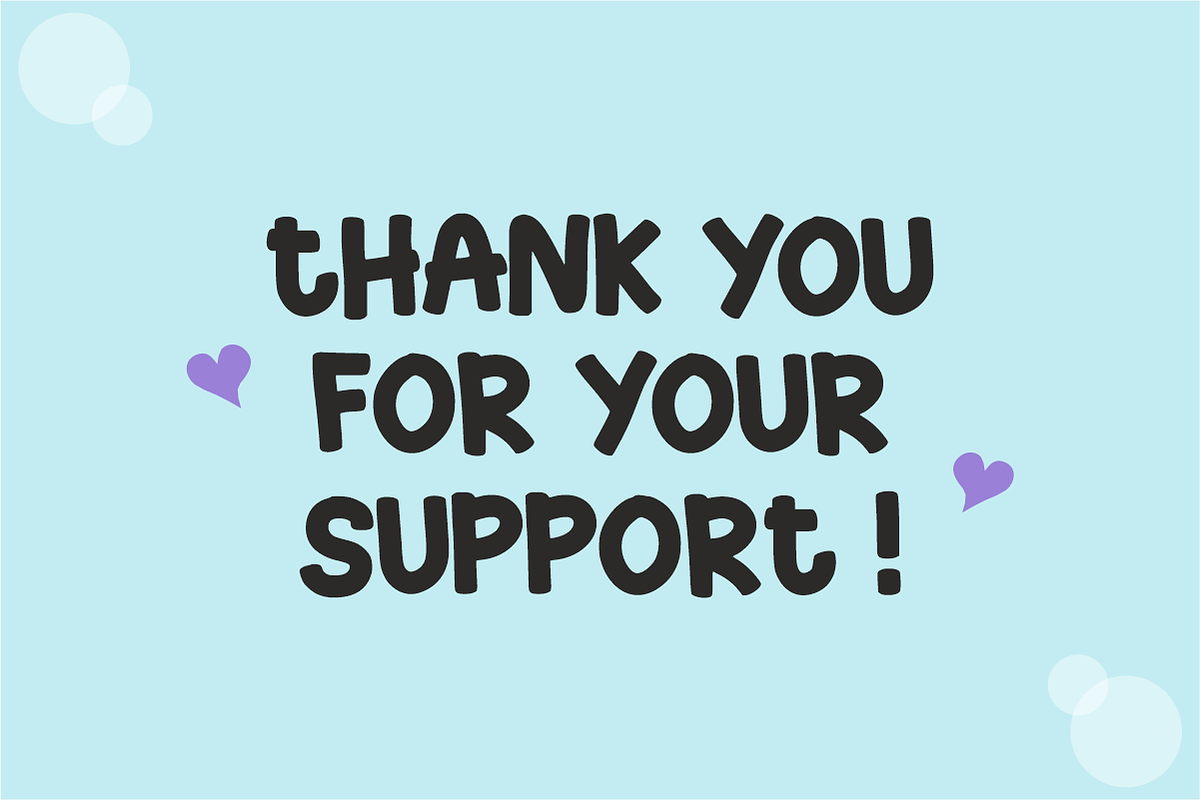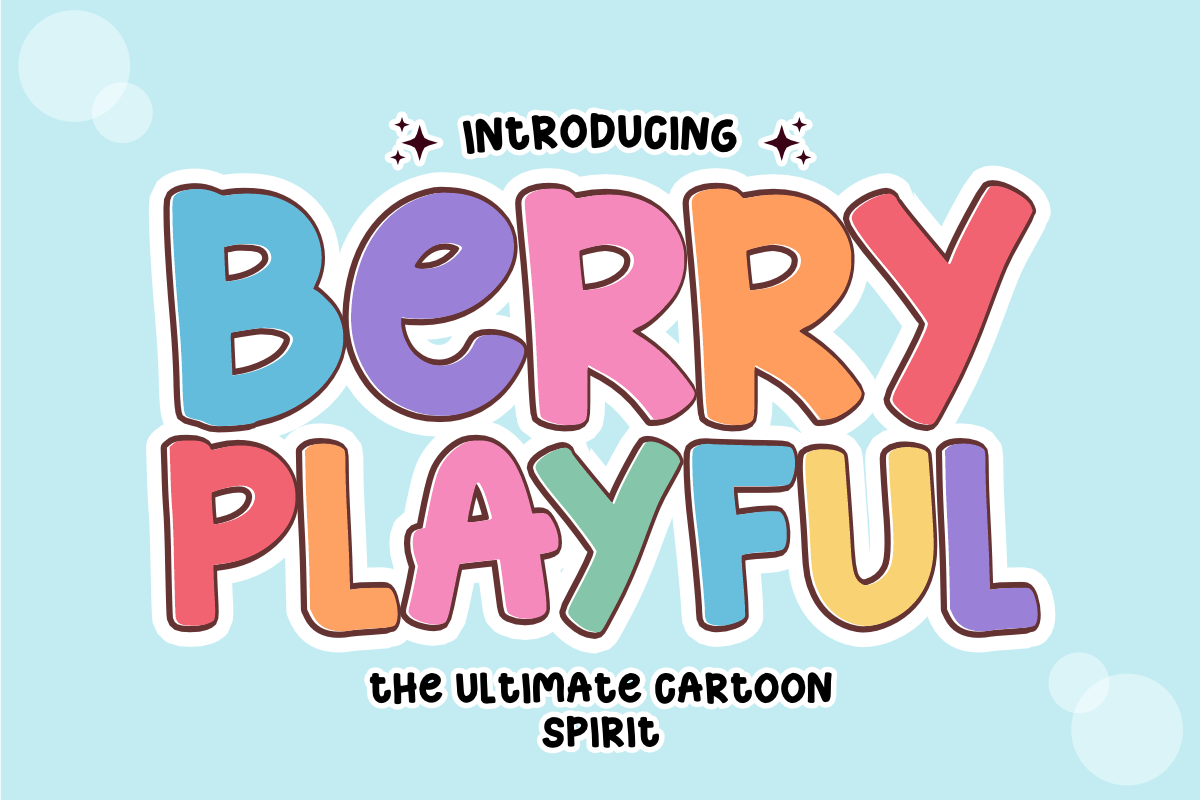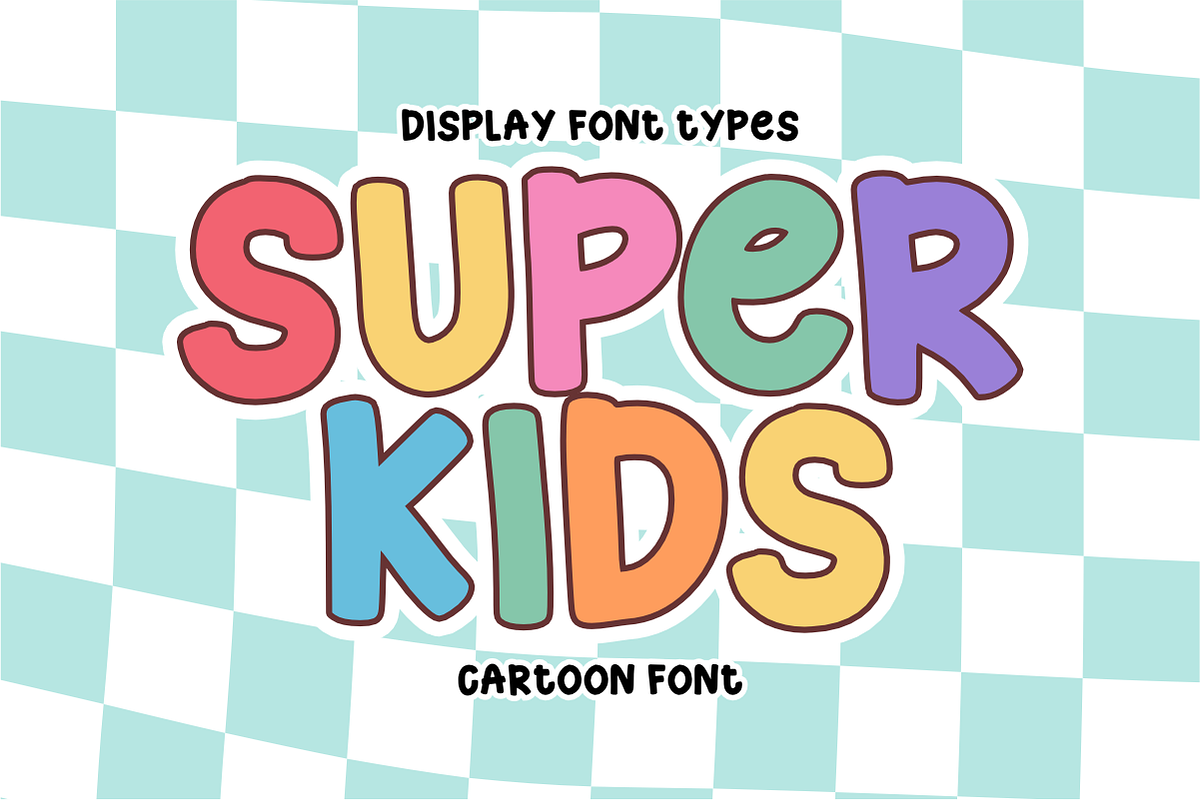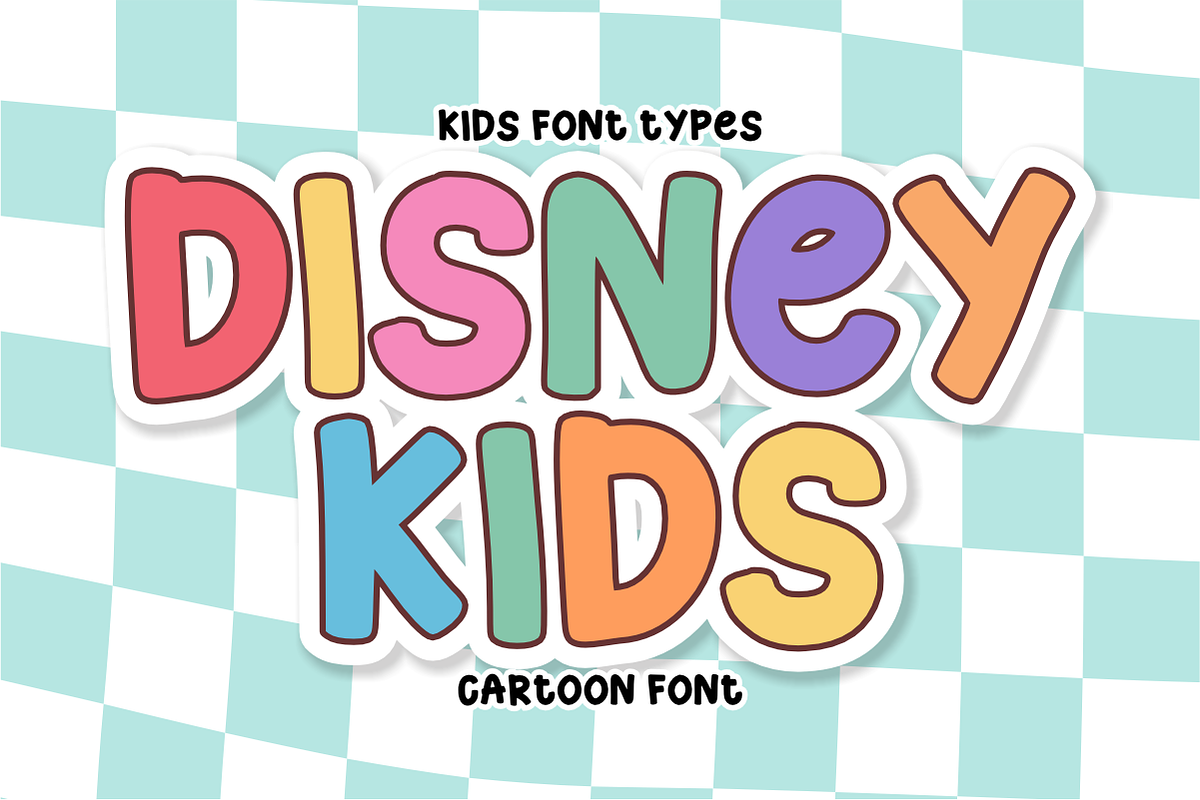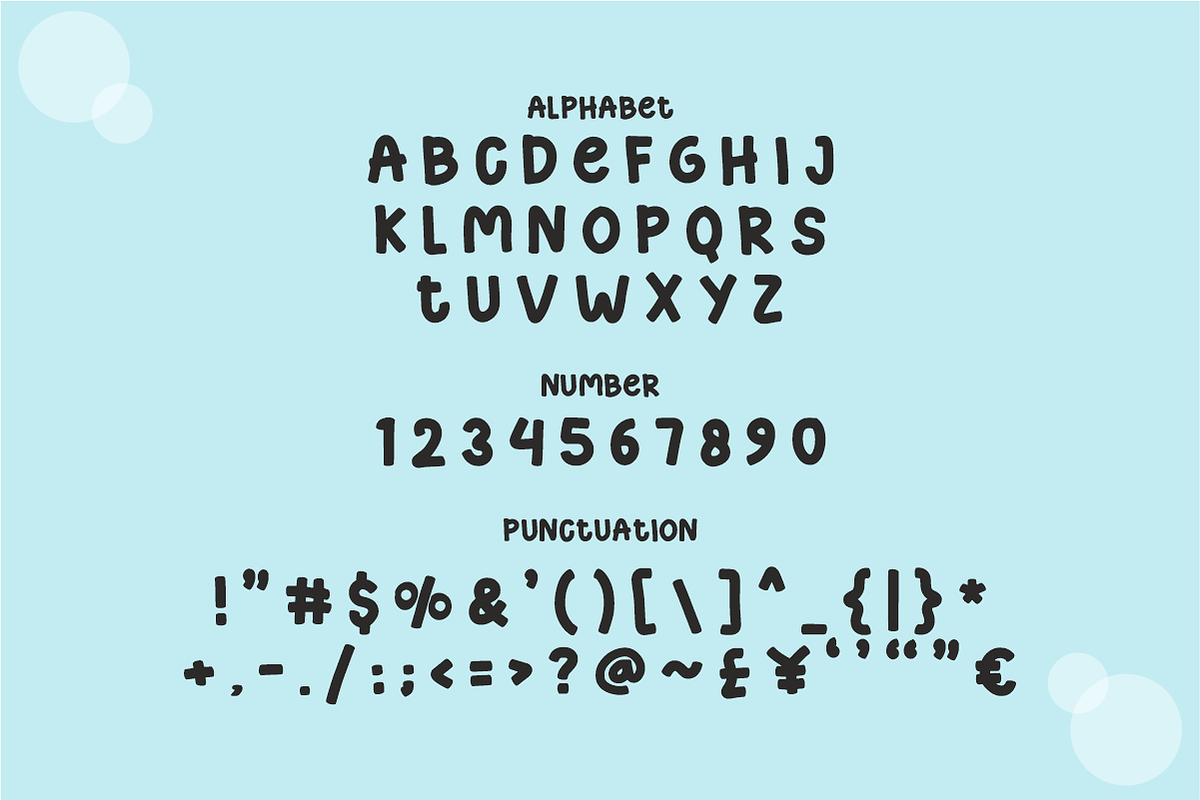
Berry Playful - Cartoon Display Font
Berry Playful - Cartoon Bubbly Display Font
Infuse your designs with the ultimate cartoon spirit using Berry Playful! This chunky, bubbly display font is packed with cheerful energy and a whimsical, hand-drawn feel. Its bold, rounded letterforms are engineered to grab attention and instantly bring a fun, lighthearted vibe to any canvas.
Whether you’re creating eye-catching branding, children's product packaging, playful marketing campaigns, or vibrant merchandise, Berry Playful delivers instant visual engagement. It’s highly legible, versatile, and perfectly optimized for professional design layouts.
All-Caps Character Set (Chunky, bold uppercase letters with a hand-drawn feel)
Numbers & Basic Punctuation (Essential, simple symbols included)
Children's Product Packaging & Labels 🧸
Brand Identity & Creative Logo Design 🎨
Social Media Marketing & Content Creation 📱
Editorial Layouts & Kids' Book Publishing 📚
Vibrant Apparel & Merchandise Branding 👕